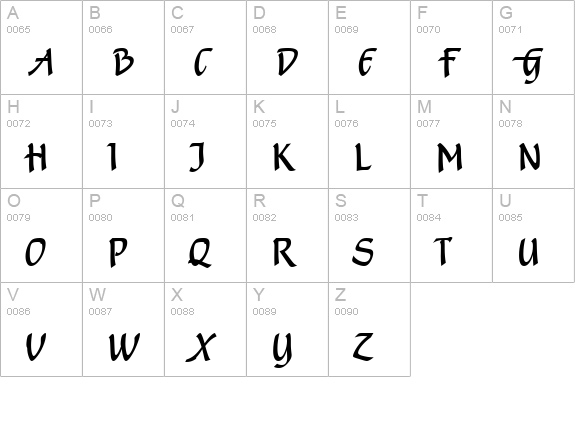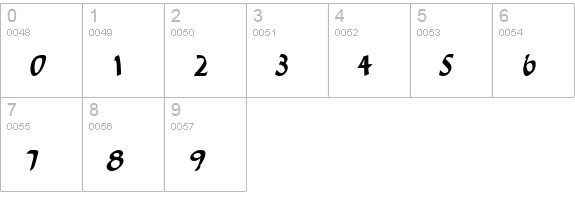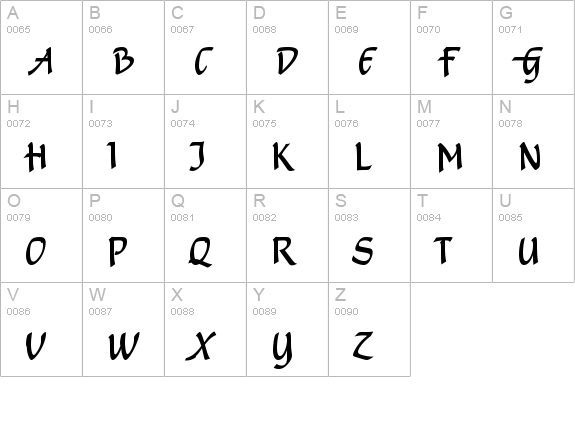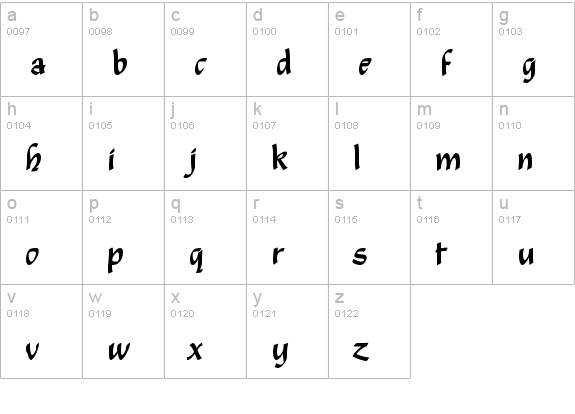
Shamrock ICG Font Details
Shamrock ICG is a captivating and versatile font that exudes elegance and charm. Its unique design combines intricate details with a touch of playfulness, making it perfect for a wide range of creative projects. Whether you are designing a logo, crafting invitations, or creating eye-catching headlines, Shamrock ICG will add a touch of sophistication and personality to your work. This font features beautifully crafted characters that are carefully balanced in terms of weight and spacing, ensuring legibility and readability in both small and large sizes. With its smooth curves and graceful strokes, Shamrock ICG adds a sense of fluidity and movement to your designs, capturing attention and leaving a lasting impression. One of the best things about Shamrock ICG is that it is free to download at FontsMarket.com. This means that you can access this stunning font without any cost or restrictions, allowing you to unleash your creativity without limitations. Whether you are a professional designer or a hobbyist, Shamrock ICG is a valuable addition to your font collection. With its extensive character set, Shamrock ICG supports multiple languages, making it suitable for projects with international audiences. Its versatility allows it to shine in various contexts, from print materials such as magazines and brochures to digital media like websites and social media graphics. The craftsmanship and attention to detail put into Shamrock ICG make it a font that stands out from the crowd. Its timeless elegance and unique personality make it a go-to choice for designers looking to create visually stunning and impactful designs. Download Shamrock ICG for free at FontsMarket.com and elevate your design projects to new heights.